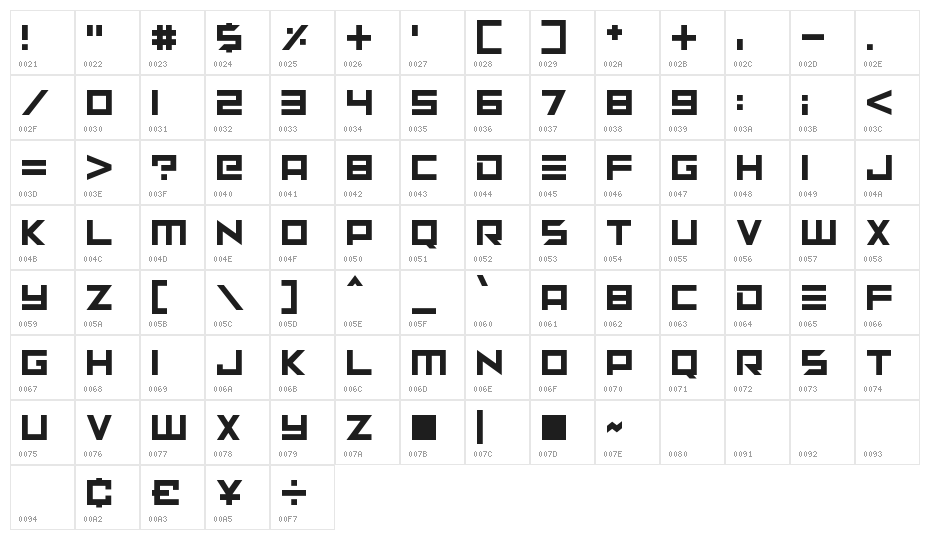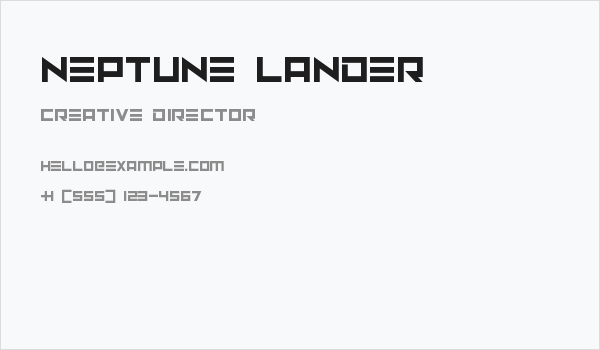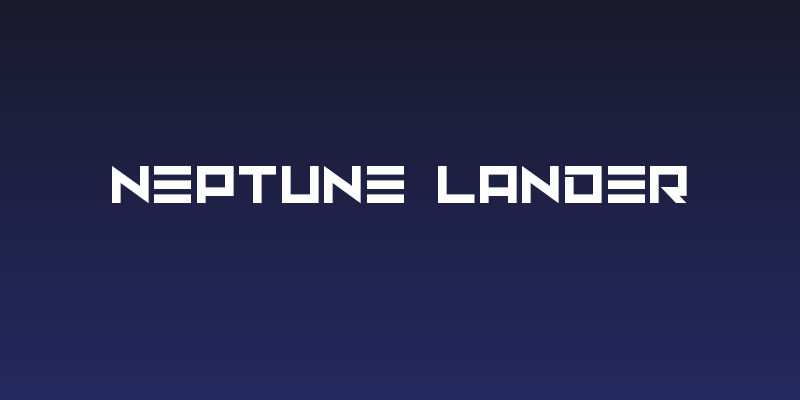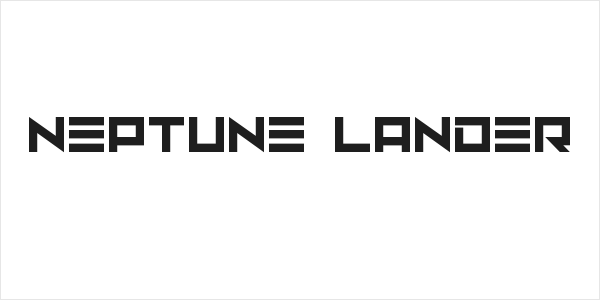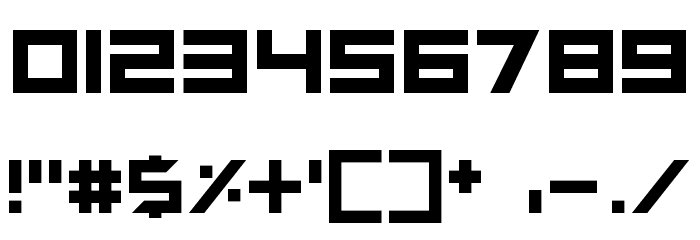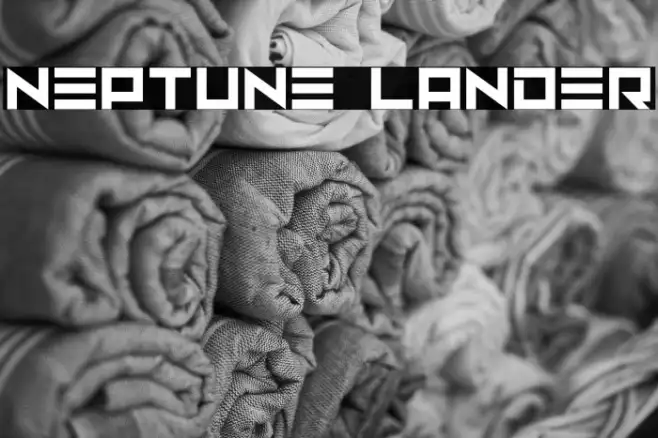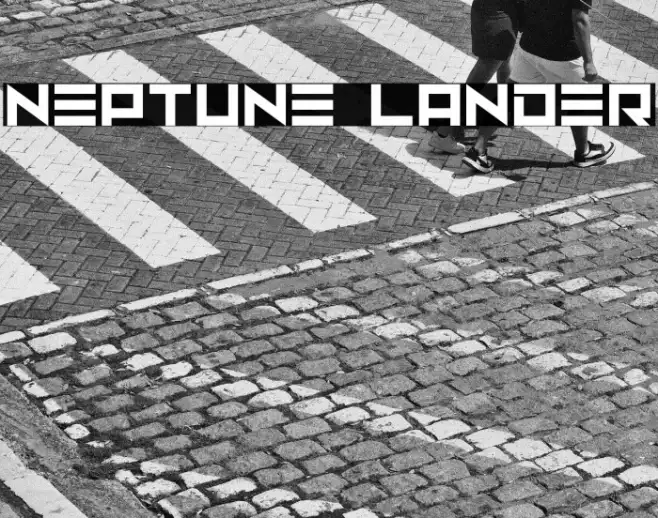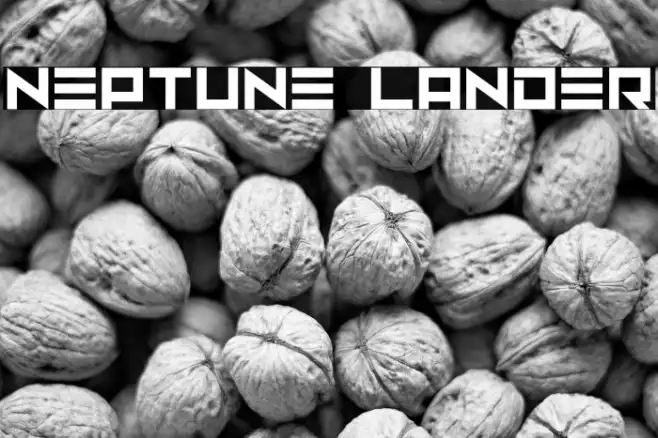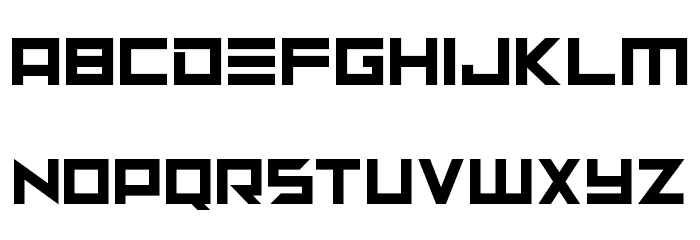
Neptune Lander Font
Neptune Lander Description
This font features a bold, geometric design with a futuristic and digital aesthetic. The characters are constructed with sharp angles and straight lines, giving them a mechanical and structured appearance. The uppercase letters are uniform in height, while the lowercase letters maintain a similar style, ensuring consistency across the typeface. The numbers and special characters follow the same geometric pattern, making them easily recognizable and cohesive with the rest of the font. The overall look is modern and tech-inspired, suitable for projects that require a strong visual impact.
| Proposed Projects | Ideal for technology branding, video game titles, sci-fi movie posters, and digital interfaces. |